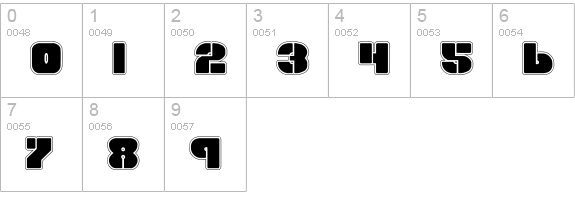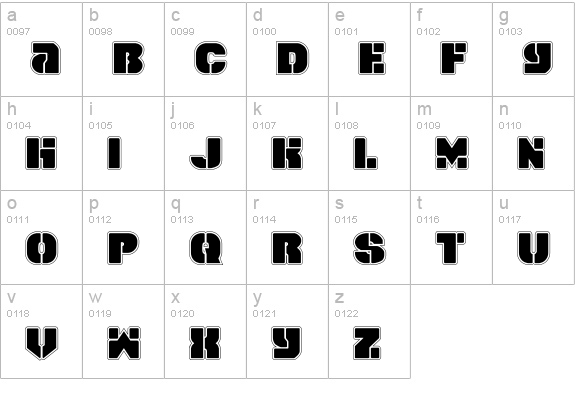
Space Cruiser Pro Font Details
Introducing Space Cruiser Pro, an awe-inspiring and futuristic font that will transport your designs to new dimensions. With its sleek lines and bold letterforms, this font captures the essence of intergalactic exploration and adventure. Space Cruiser Pro is the perfect choice for any project that aims to evoke a sense of wonder and discovery. Whether you're designing a science fiction book cover, creating a futuristic logo, or crafting a visually stunning poster, this font will take your design to the next level. What sets Space Cruiser Pro apart is not only its stunning visual appeal but also its accessibility. This font is freely available to download at FontsMarket.com, allowing designers of all levels to utilize its captivating style without any limitations. With Space Cruiser Pro, you have the freedom to unleash your creativity, unrestricted by any licensing restrictions. This font is a true testament to the power of innovation and collaboration, as it was carefully crafted by a team of talented designers who wanted to share their creation with the world. So go ahead, embark on a typographic journey through the cosmos with Space Cruiser Pro. Download it for free at FontsMarket.com and let your designs soar to new heights.